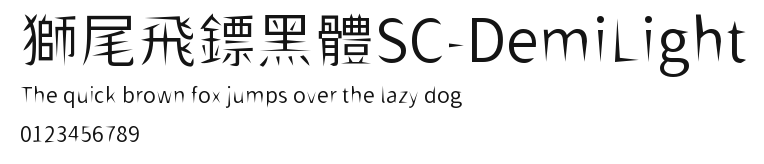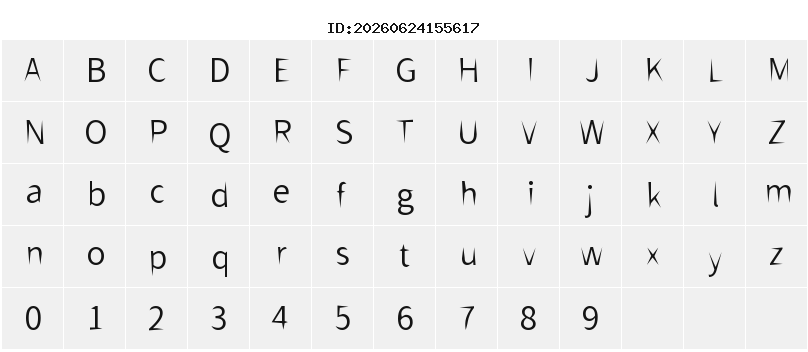
• Font Name: 獅尾飛鏢黑體SC-DemiLight
• Font Style: DemiLight
• Font ID: FontForge 2.0 : Swei Dart Sans CJK SC DemiLight : 20-4-2020
• Full Font Name: 獅尾飛鏢黑體SC-DemiLight
• Version: Version 2.130
• PostScript Name: SweiDartSansCJKsc-DemiLight
• Character Count: 44508
About 獅尾飛鏢黑體SC-DemiLight.ttf
獅尾飛鏢黑體SC-DemiLight.ttf is a modern, elegant sans-serif font designed for ultimate readability and visual harmony. Perfect for branding, headlines, web design, and print materials.